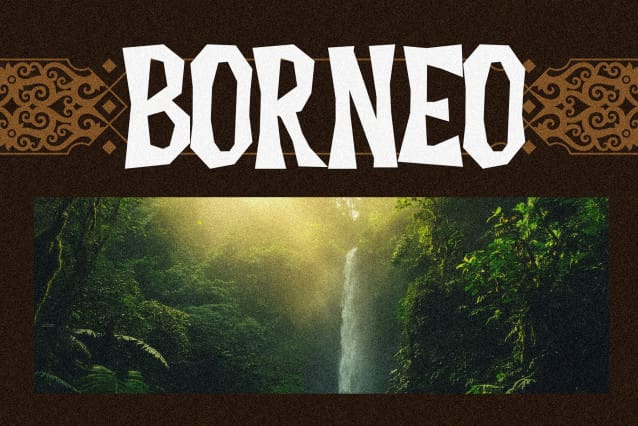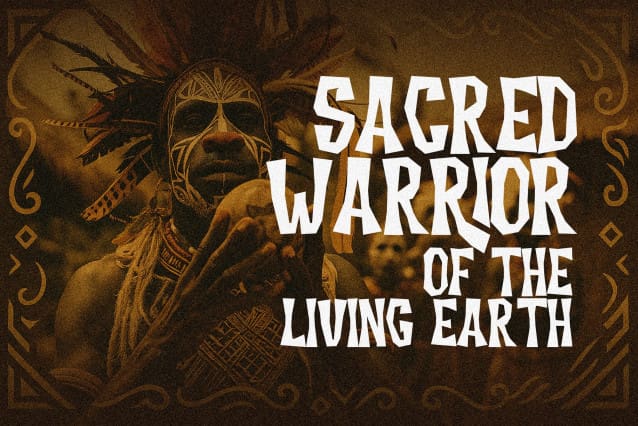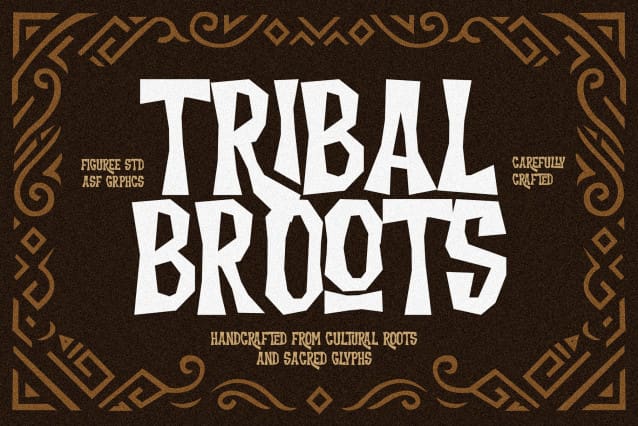
Tribal Broots Font
Tribal Broots Font – Sacred Display Font is crafted for projects that demand impact, mystery, anFontd cultural richness. Inspired by sacred symbols and tribal artistry, this font is more than just letters—it’s a visual identity. Its bold strokes, intricate ligatures, and allcaps style make it the perfect sacred display font for logos, posters, branding, and creative designs that require a spiritual or tribal atmosphere.
From modern marketing to ancient-inspired visuals, Tribal Broots delivers the balance of contemporary usability and timeless symbolism. Designers seeking a unique sacred display font will find it an invaluable addition to their creative toolkit.
Sacred Display Font with Tribal Power
What sets Tribal Broots apart from ordinary fonts is its ability to convey power and spirituality in every character. As a sacred display font, it features sharp geometry and handcrafted ligatures that mimic tribal patterns. The allcaps design gives it strength and uniformity, while the cultural inspiration behind each stroke adds authenticity and soul.
This makes Tribal Broots the ideal choice for projects that need to feel strong, artistic, and meaningful—from branding campaigns to ceremonial posters.